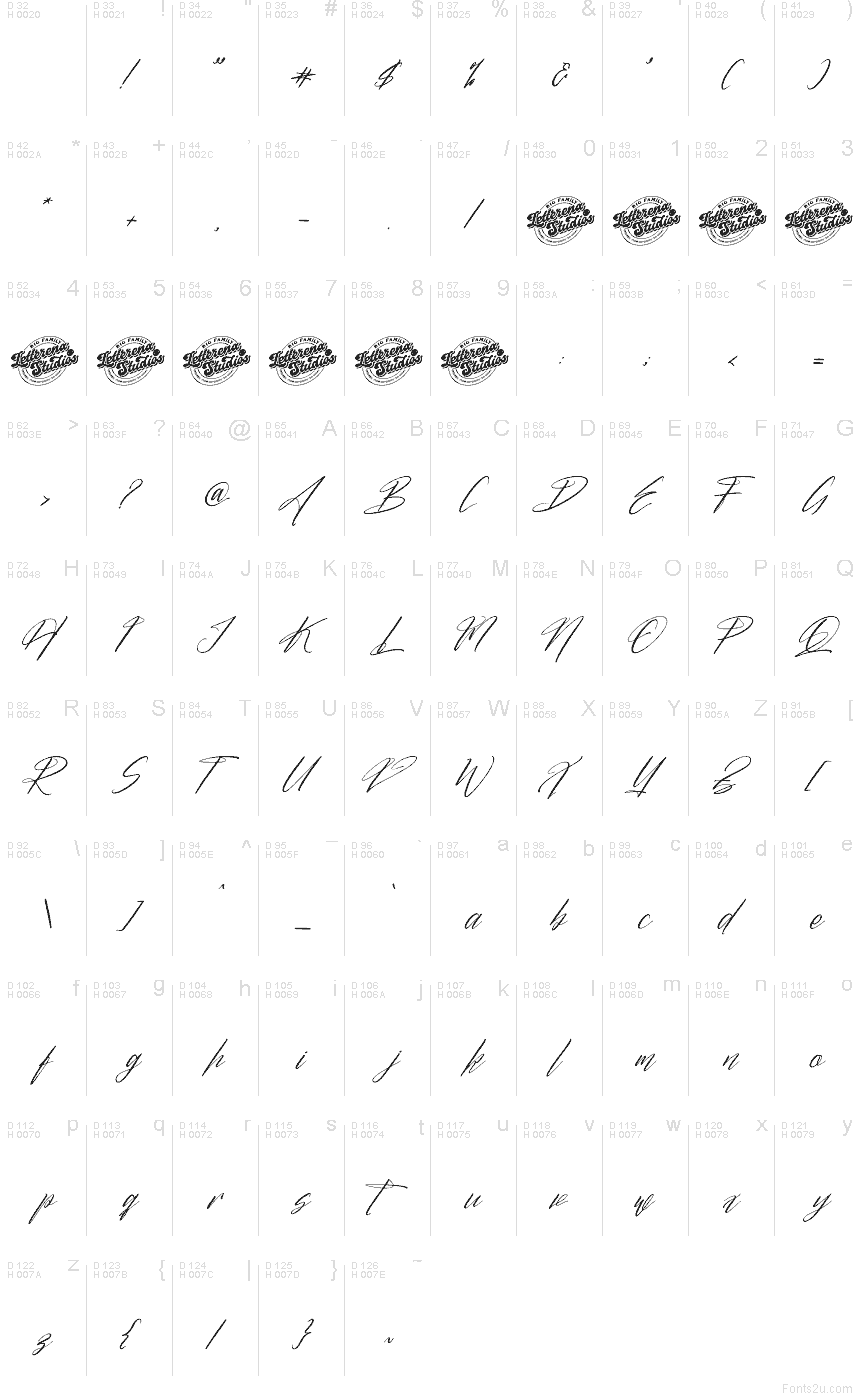
Butnekia DEMO VERSION Italic
Butnekia Italic font by Letterena Studios is a free handwritten font that captures the sweep and drama of a luxury signature. Flowing loops, long tails, and a fine pen-like stroke give it that ink-on-paper feel, as if it were dashed off by a confident hand on thick stationery. Within the Butnekia family, this italic cut leans into elegant motion, with letters that dance into each other in a smooth, continuous rhythm.
Using Butnekia Italic, your text immediately feels tailored and high-end, so it shines on wedding invitations, personal branding, beauty or fashion logos, social media signatures, product packaging, and upscale quote graphics. The airy spacing keeps even long names legible, while the slender curves whisper sophistication rather than shouting. Pair this free font with a clean, minimalist sans serif for body text and let Butnekia Italic handle names, headings, and hero words at larger sizes.